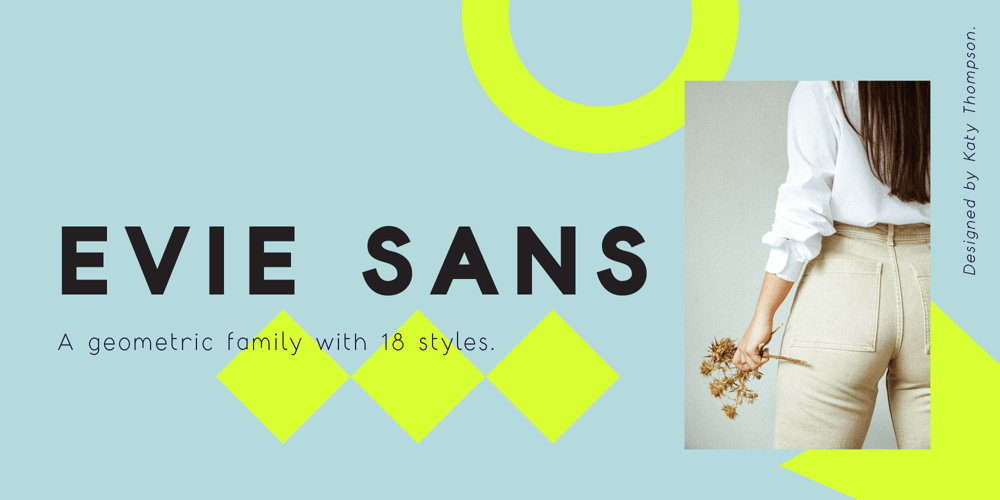
Evie Sans Font Family was designed by Katy Thompson and published by KTStudio. Evie Sans contains 18 styles and family package options. Evie Sans was developed in 2020 by Katy Thompson as a typeface to be used for her customisable planner / diary company PLANNER.STUDIO. The fonts have geometric proportions and subtle Art Deco influences in several of the uppercase characters, including a lowered crossbar on the H, lowered middle arm on the F and deepened bowl on the P. The family includes 6 weights in regular, italic and condensed variations, each with 216 glyphs. Evie Sans is perfect for modern branding and logo design, editorial design, web design, packaging and other projects.